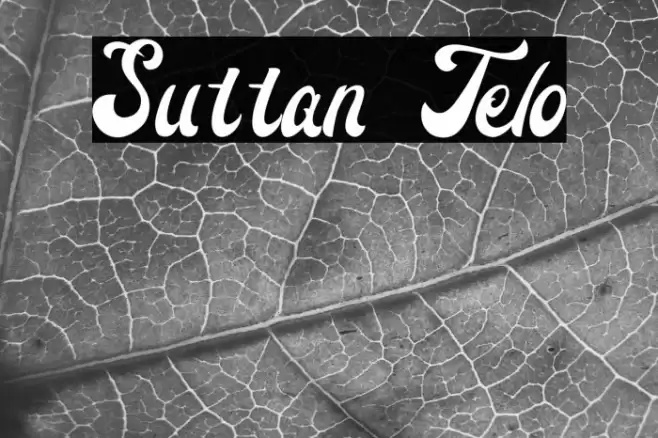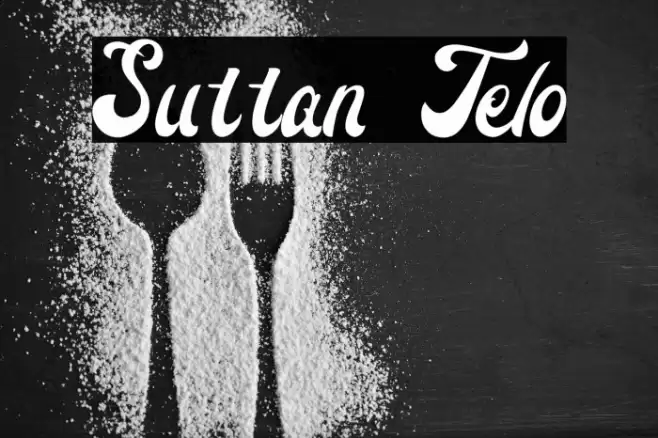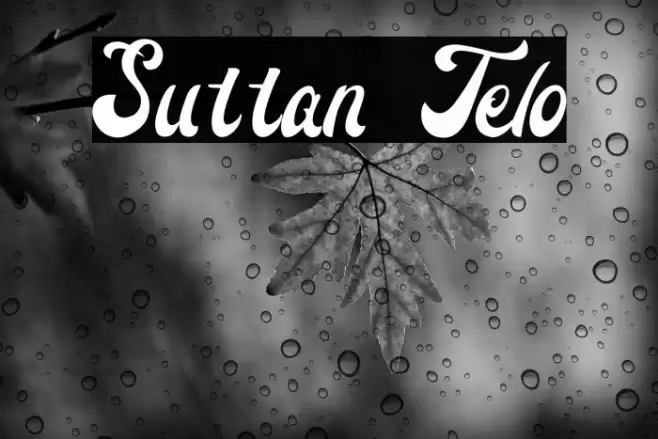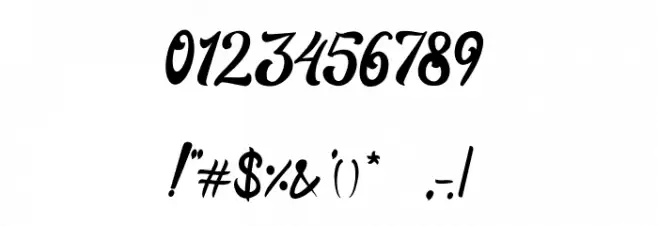
Suttan Telo Font
Suttan Telo Description
This font exhibits a bold and flowing script style, characterized by its elegant and cursive letterforms. The uppercase letters are ornate with sweeping curves and flourishes, while the lowercase letters maintain a consistent and harmonious flow. The numerals are equally stylized, matching the overall aesthetic of the alphabet. Special characters are designed with a similar flair, ensuring a cohesive look throughout. The font's design is reminiscent of calligraphic handwriting, making it suitable for projects that require a touch of sophistication and elegance.
A bold, flowing script font with elegant, cursive letterforms from Regular fonts.
- Proposed Projects: Ideal for wedding invitations, greeting cards, branding, and logo design.
- Use Case: Logos, Headlines, Invitations